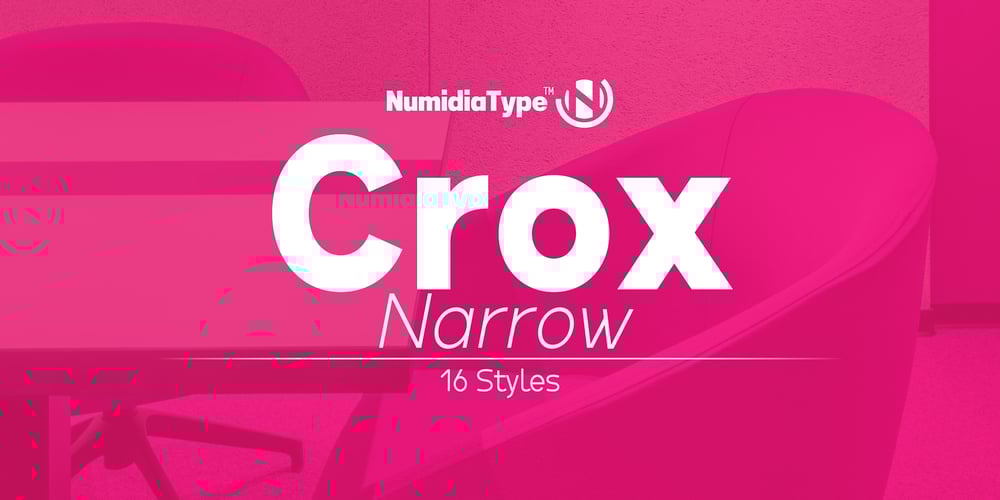
Crox Narrow Font Family was designed by Yassine Abdi and published by NumidiaType. Crox Narrow contains 16 styles and family package options. Crox™ Narrow is the second family of Crox™, designed for long texts and gaining paragraph spaces. It’s available in 19 styles, including upright and italic, and the majority of glyphs are compressed to make a different spacing between characters.The basic English characters are provided as both numerator and denominator sets in the narrow version too; this feature may assist with the creation of fractions with letters and numbers, such as in advanced scientific fraction form scripting.Within each style, all weights support over 25 professional OpenType features, with significant coverage of western languages. and include multi-alternative characters in Styles 1, 2, 4, 10, and 11, which were initially intended for advanced usage.SpecimenCrox™ is a trademark of Yassine Abdi.